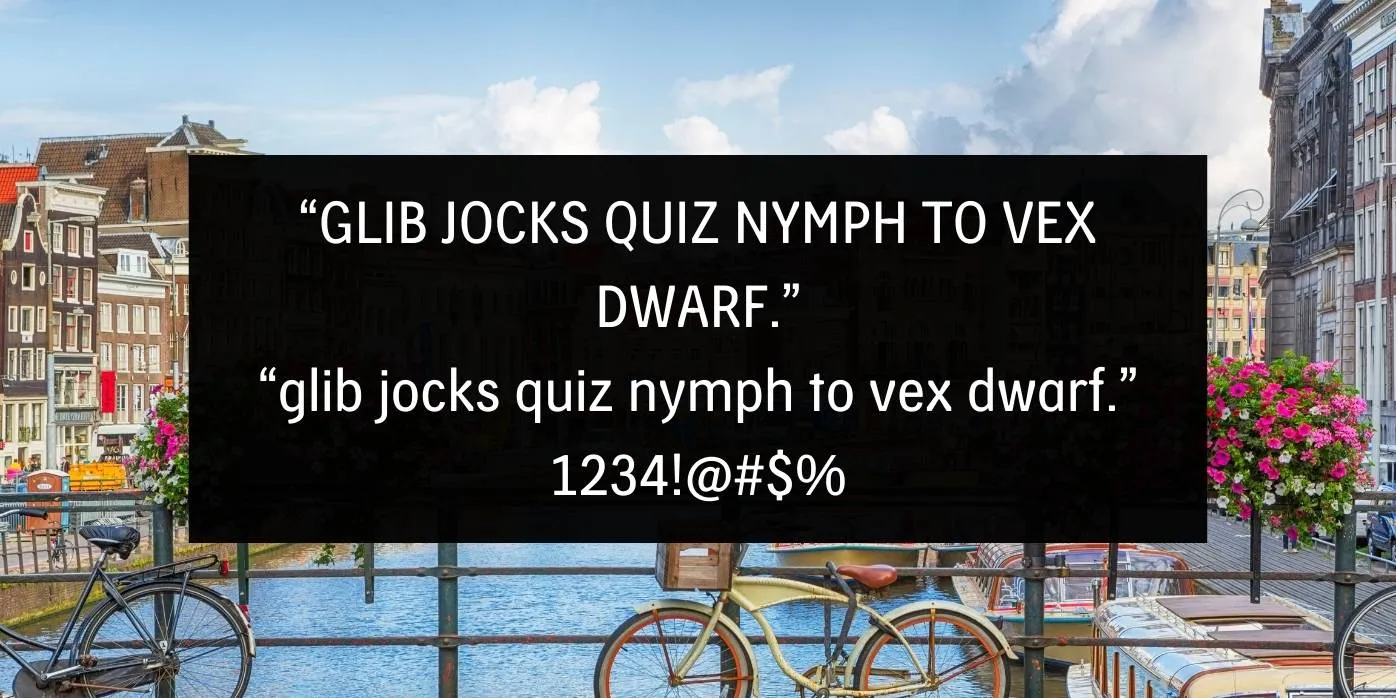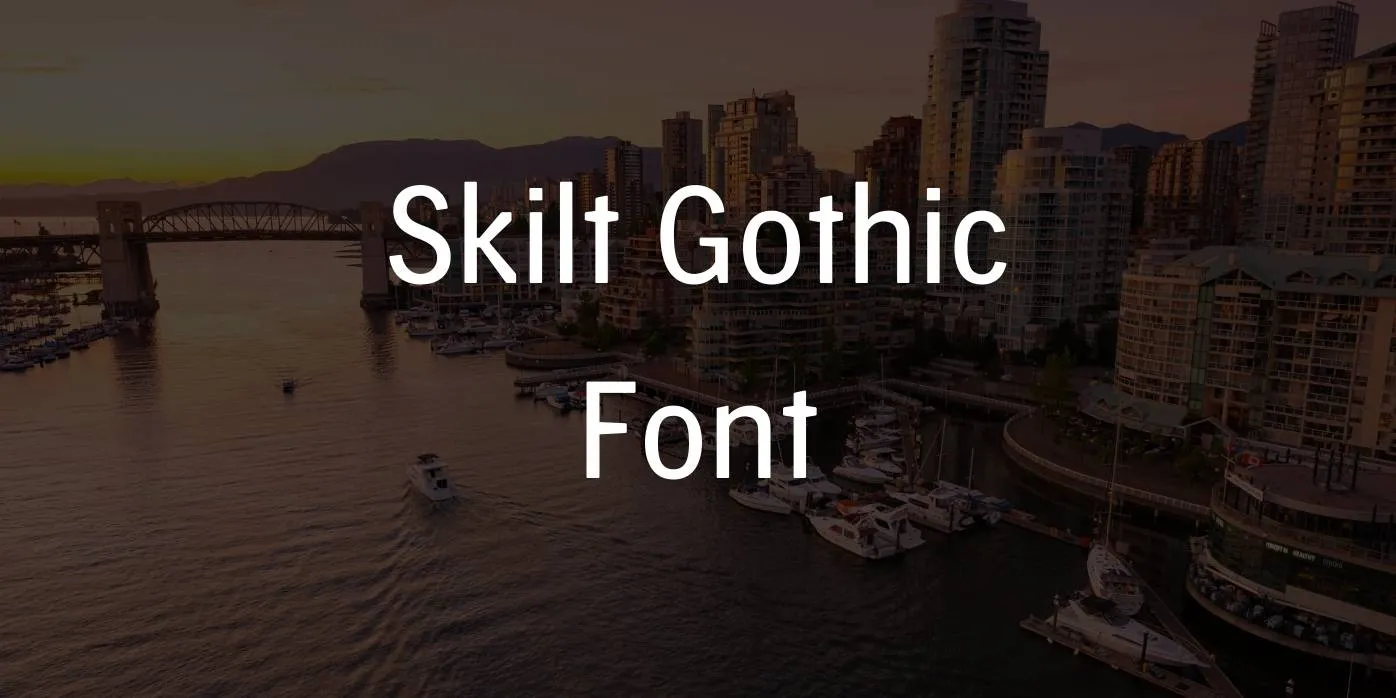
Skilt Gothic Font
Skilt Gothic Font belongs to the sans serif family. This typeface was developed by Måns Grebäck in 2012. The design of Skilt Gothic Typeface is inspired by classic sans serif typefaces such as Futura and Avant Garde. This font is characterized by its clean and simple shapes.
The letters are well balanced and have a uniform width. This makes Skilt Gothic Typeface very legible, even in small sizes. It is not included in google fonts you can download it from our website. Another similar font which is bauhaus font is perfect for different designs.
This stunning font is available in three different weights: light, regular and bold. Each weight has its own unique character. The lightweight is delicate and airy, while the bold weight is strong and powerful. The generator tool of this typeface is very helpful for different designs.